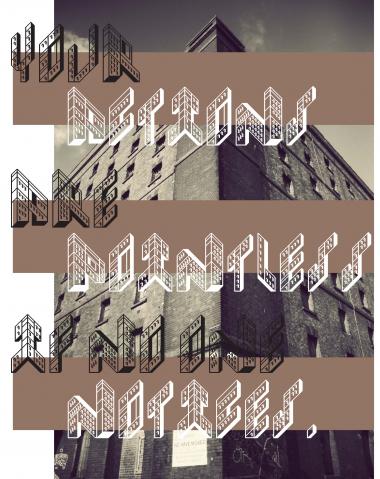
• A reflection in history. This typeface design has been created for my first typography project at UWE Bristol. it has been inspired by Bristol's past Tobacco history by taking inspiration from the architectural elements of the disused Tobacco warehouses that still stand prominent in the Southville area of the city. After studying the buildings and making site visits to take photographs from all 4 sides of the warehouse, i started to look at how i could create the letter forms by using the occurring perspective of the building in relation to where i was stood. What i most like about the whole design is it not an obvious 'Reflection' inspired design and for me that has made this project a success. Later on this design will be constructed into a 3D word, where i intend to make the letters out of Red Brick like the buildings themselves.
Absolutely kick bottom, I love this!
Something is terribly delightful about the use of perspective in this one :D
Great use of perspective. Reminiscent of Funk_King's work (high praise in this here neck of the woods)
Love the frog perspective. The sample is good and accentuates your point of view. Should the bottoms of U and V also need to be visible?
Tobacco Factoryby Tomhobbs